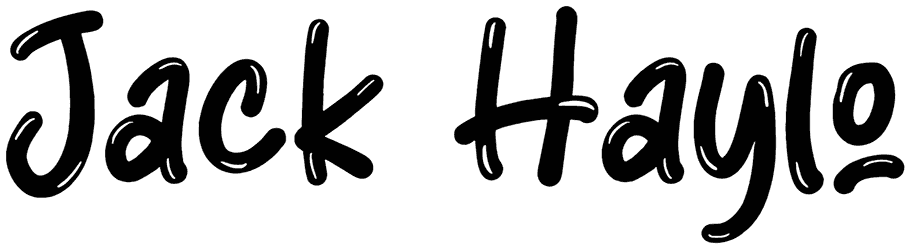
Jack Haylo Font
With a playful and funny style, you can make a simple design more exciting, and this option will be a good choice for this purpose. Jack Haylo is a cartoon font with soft and sweet letters that would give a positive vibe to your words. Even though Jack Haylo font doesn’t cover most punctuation marks, it can display your layouts well, from games to apparel.